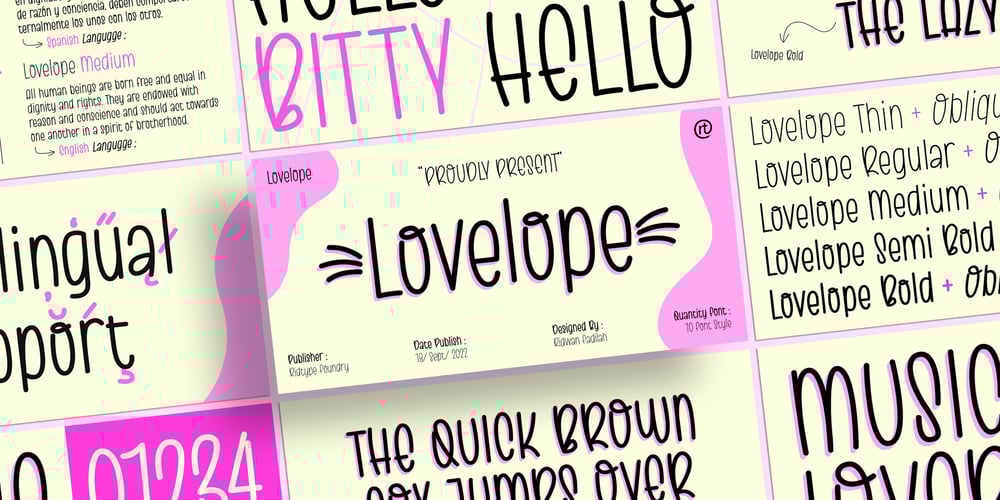
Lovelope Font Family was designed by Ridwan Fadilah and published by Ridtype. Lovelope contains 10 styles and family package options. Lovelope is a cute handwriten font sans serif style.This font is inspired by the expression of happiness from the activities carried out by a little girl in the expression of joy. So we created these fonts to get and feel what they feel.This font is perfect for stickers, printing, logos and other purposes.Thanks for your support of our product, and using it in your project.